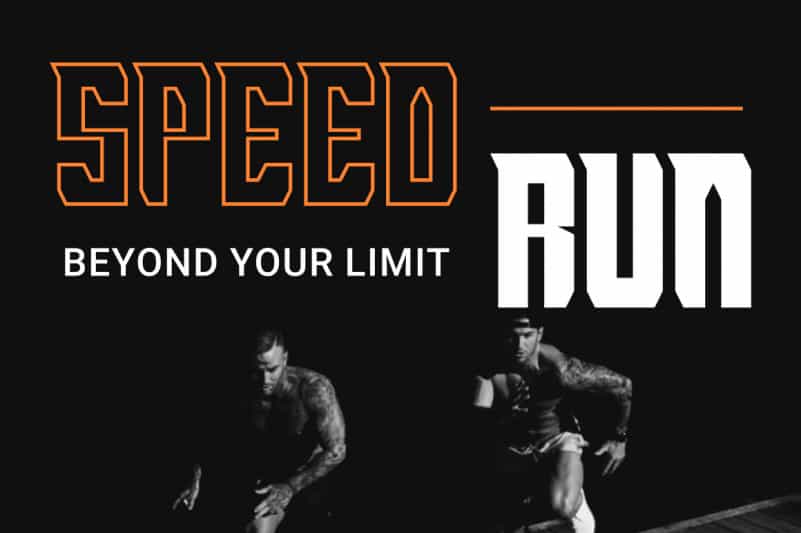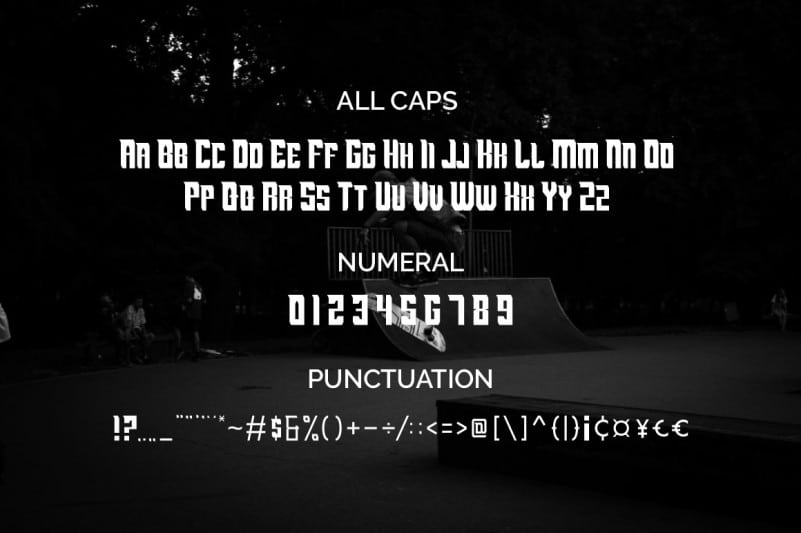
Hello, Muntela Display Font is a sans serif font created for your needs. It’s perfect for logos for branding, typographic designs, badge designs, product packaging, invitations, offers, t-shirt designs, label posters, special events, and whatever you want to need.